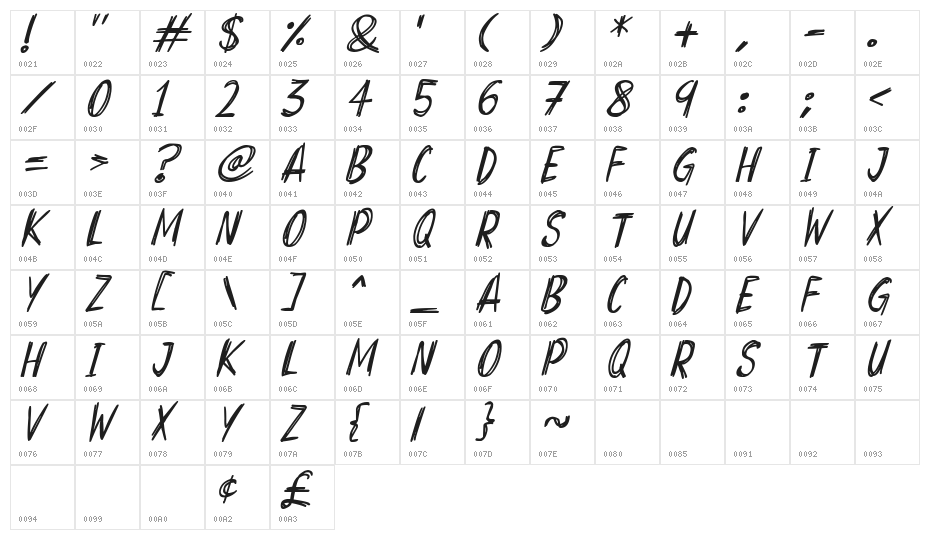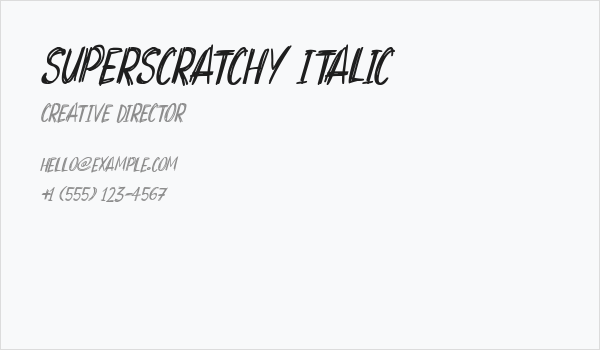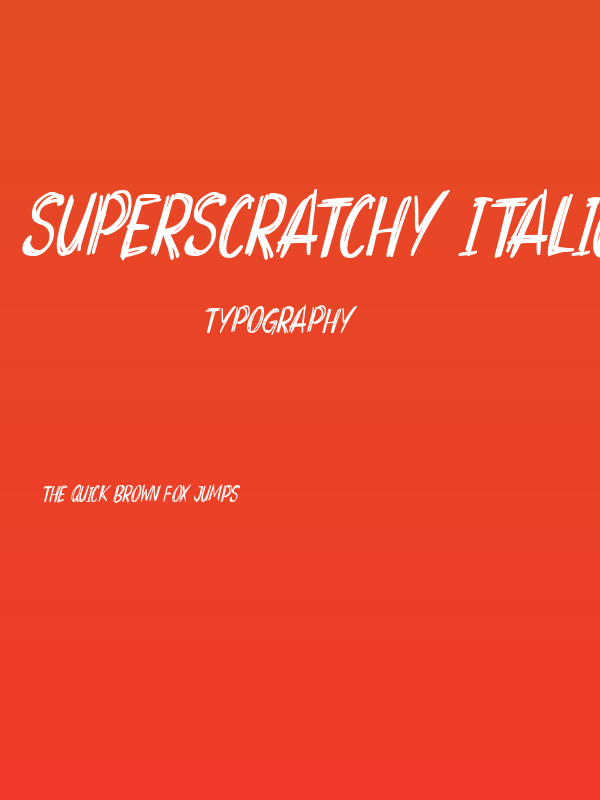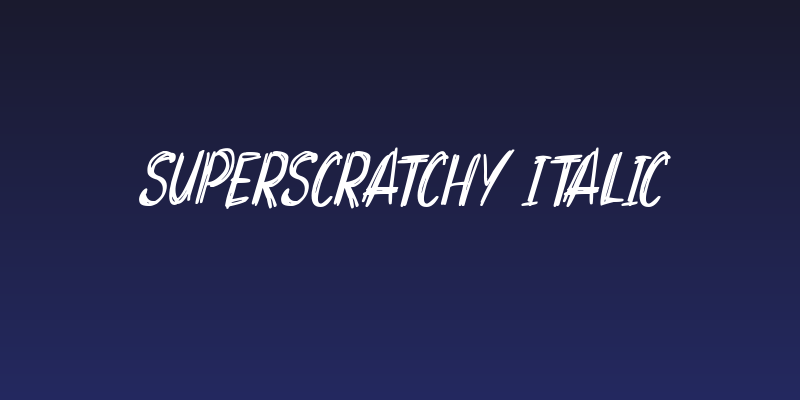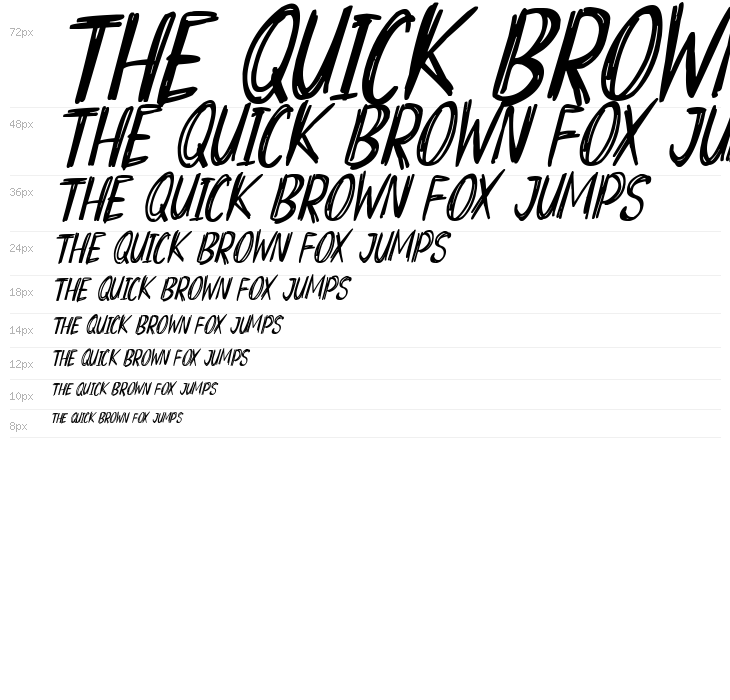
Superscratchy Italic Font
Superscratchy Italic Description
This font exhibits a dynamic and energetic style, characterized by its scratchy, hand-drawn appearance. The letters are slanted, giving it an italicized look, and the strokes are uneven, adding to its raw and expressive nature. The uppercase and lowercase letters maintain a consistent style, with exaggerated curves and sharp angles that create a sense of movement. The numerals and special characters follow the same aesthetic, ensuring a cohesive look across all elements. This font is perfect for projects that require a bold, artistic touch, such as posters, album covers, or any design that aims to capture attention with its unique flair.
| Proposed Projects | Ideal for posters, album covers, graffiti art, and any design needing a bold, artistic touch. |